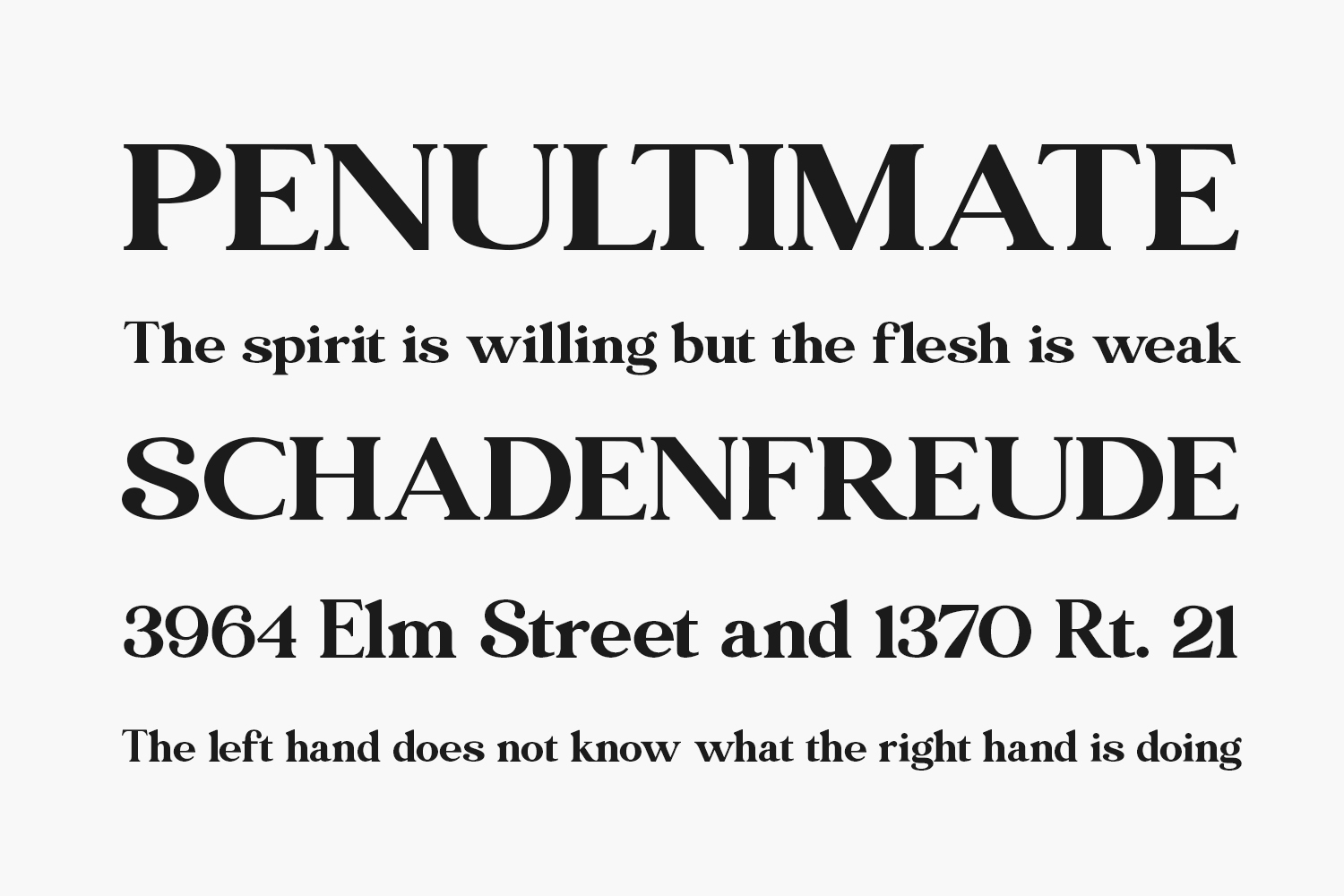
Rachel Brown Free Font is a trendy and stylish serif font. Incredibly versatile, this font fits a wide pool of designs, elevating them to the highest levels. Add this font to your favorite creative ideas and notice how it makes them come alive. Rachel Brown Free Font was designed by Fargun Studio and is free for personal use only. Please purchase the full version for commercial use.